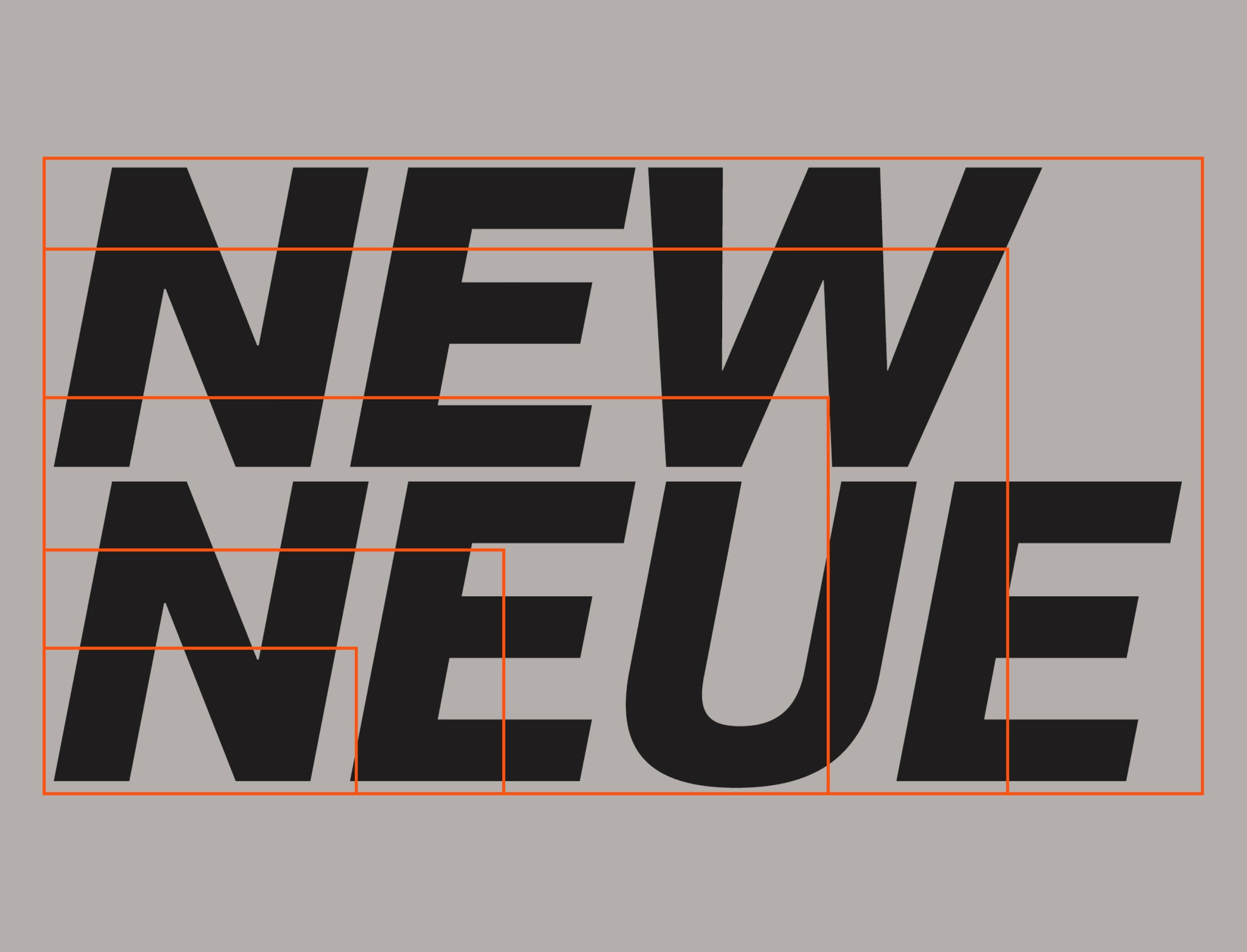
We recently launch Neue Montreal with the intention of creating a font that could be used in many if not all graphic design situations. We wanted to create a fresh Grotesk family that would have all the quality of what a font like Helvetica or Akzidenz Grotesk can bring while adding subtle details like a tighter kerning to make it unique
It's the font we use for our website and all our communications, working with it is a charm. I feel every time I try it in a design the font takes on a different meaning, it blends with its environnement and yet makes it stand out.
We created a couple of examples/designs to highlight the possible pairings with our other free fonts and hopefully inspire you!
Neue Montreal and... Neue Montreal
Uhh... This is the obvious pairing, right?! When a font is versatile and has a lot of weights, it's a good idea to only use that one font throughout the design. Different weights, size and spacing can make it feel quite different but still part of the same family.
Neue Montreal has 8 weights (4 romans and 4 italics) so you have plenty of options to choose from to create a great design. The examples below show you some possibility of layouts and weight arrangements. You can also browse through our site to see the concept in action since we're only using Neue Montreal.
Neue Montreal and Pangram Sans
Pairing a Grotesk with a geometric font like Pangram Sans can create interesting tension in your designs. The minimalist lines of Pangram coupled with the subtle curves of Neue Montreal can make a project defining visual contrast for your next design.
The few examples below show you can create interesting and visually tense designs using the two typefaces. I find that outlining Neue Montreal in its italic weight goes really well with the lighter weights of Pangram Sans. You can also switch them around and use one or the other as hero text, the other as body and vice versa.
Neue Montreal and Fuji Sans
This pairing is great especially for editorial pieces. Fuji Sans Bold in All Caps works great for titles while Pangram Sans works magic at long-form text.
The examples show how you can use this pairing in a clean an minimalist design using imagery of the same nature. Make sure Fuji Sans is nice and big and that the regular or medium weight of Neue Montreal is used.
Neue Montreal and Supply Mono
Everyone likes a good monospace. It gives you structure and order to your design while being stylish. This pairing works well for me because I like how the Supply Mono curves/angles complements the curves of Neue Montreal. Again, you can use either as hero or body text. Supply Mono looks especially good all caps in titles.
In the examples below you can see how Supply Mono works really well with the curvy numbers of Neue Montreal on a black background. You can also notice that if you reverse the roles things still make sense visually just add a dash of pastel color and you're set!
Neue Montreal and Stellar Sans
Last but not least — Stellar Sans. Paired with Neue-Montreal, this condensed typeface can really set your design apart when used in bold and all-caps.
These last examples are a bit more brutalist but you can see how versatile Neue Montreal can be even in an unconventional design. I like the use of outlines, pictures and earthy colors with this pairing, you get that contemporary feeling while staying clear and legible.